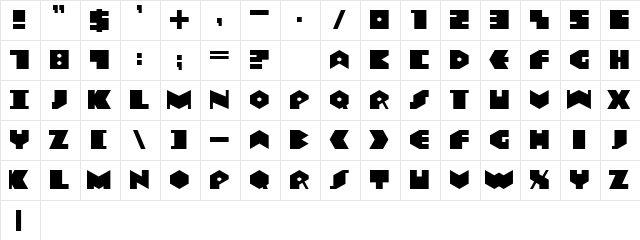
Data Transfer Regular
Design Context for Data Transfer
Data Transfer is a composed and adaptable typeface that performs quietly and consistently across a wide range of design contexts.